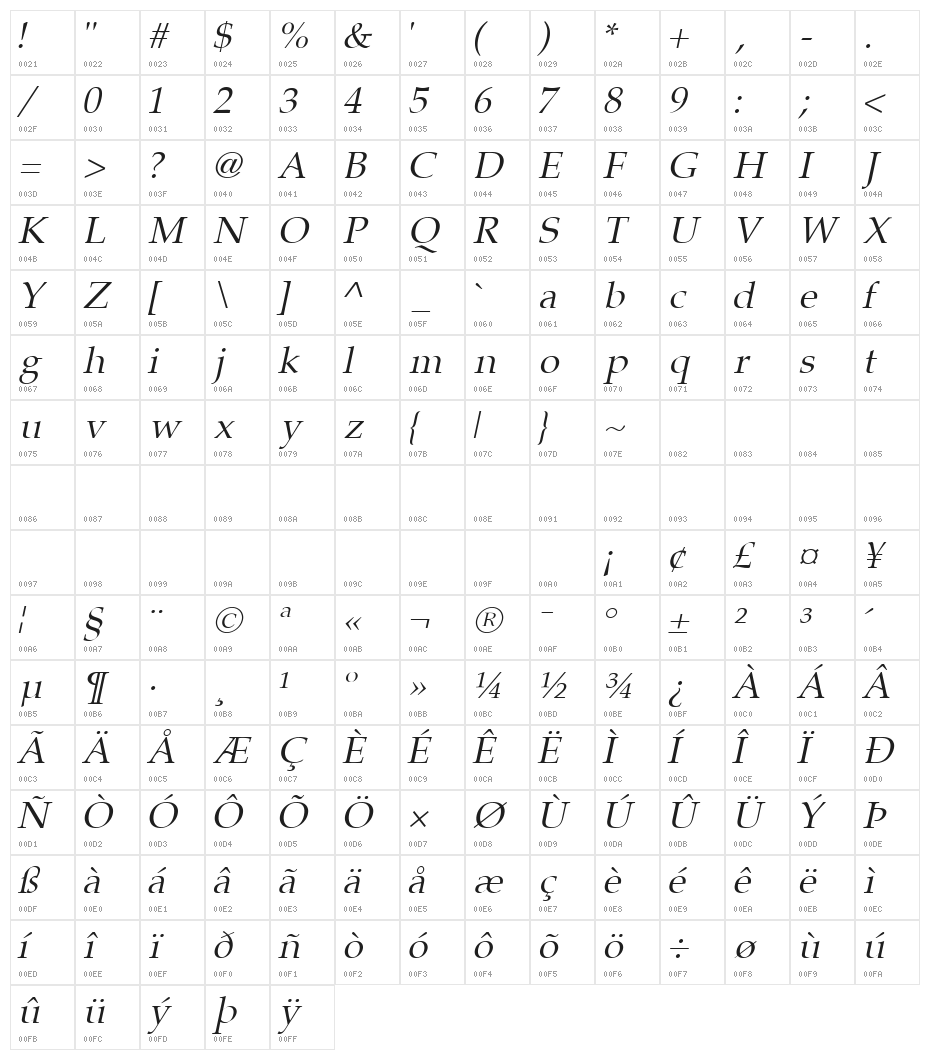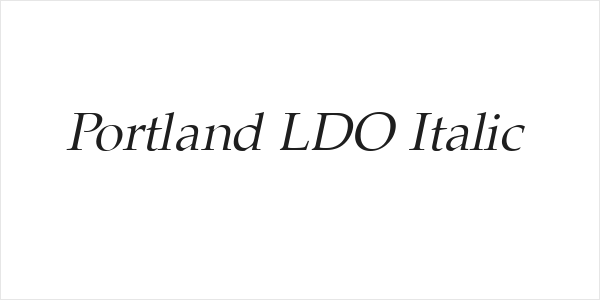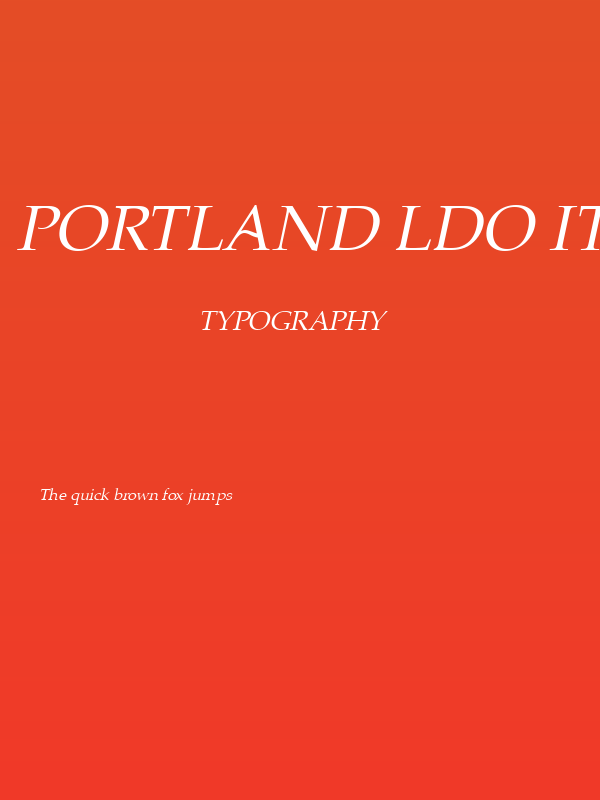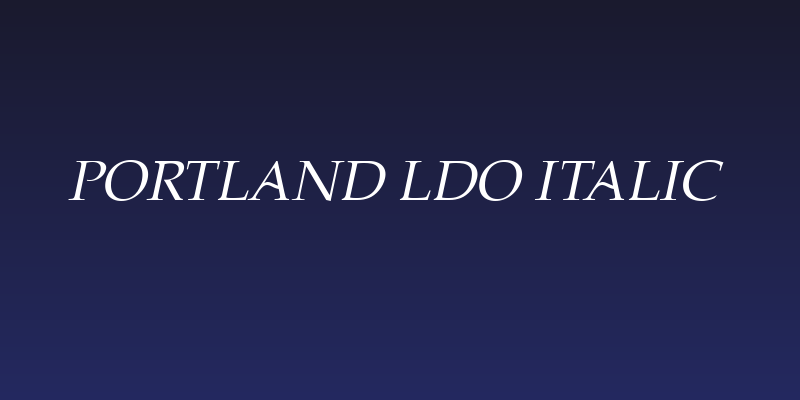
Portland LDO Italic Font
Portland LDO Italic Description
This font exudes a classic elegance with its italicized serif style, offering a refined and sophisticated look. The characters are gracefully slanted, providing a sense of motion and fluidity. The serifs are pronounced yet delicate, adding a touch of traditional charm. The uppercase letters stand tall and commanding, while the lowercase letters maintain a harmonious balance. The numerals are clear and precise, ensuring readability. Special characters are thoughtfully designed to complement the overall aesthetic. The font's contrast in stroke thickness is moderate, enhancing its legibility without sacrificing style.
| Proposed Projects | Ideal for formal invitations, elegant branding, book covers, and editorial design. |